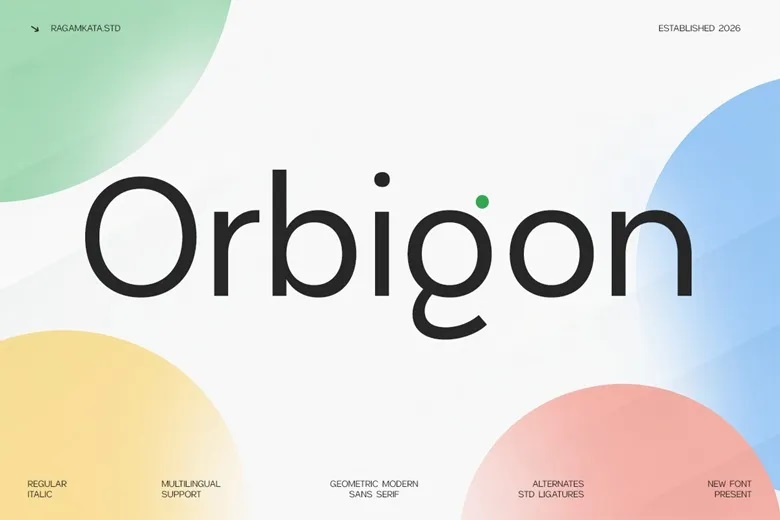
Orbigon Font
Orbigon is a modern geometric sans-serif font that offers clarity, balance, and a contemporary look. Its clean lines and smooth curves give it a strong visual presence that feels both professional and friendly. The minimalist style makes it a great choice for brands seeking a timeless yet fresh typographic feel.
Orbigon works well for branding agencies, startups, tech companies, architecture firms, creative portfolios, luxury packaging, magazines, posters, social media, and business materials. It helps designers create clean, memorable visuals for both digital and print projects.
Orbigon Sans Serif Font